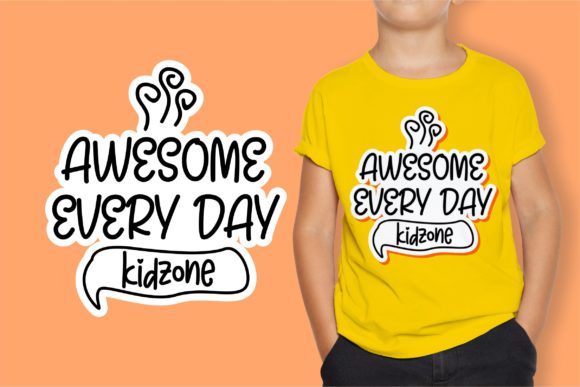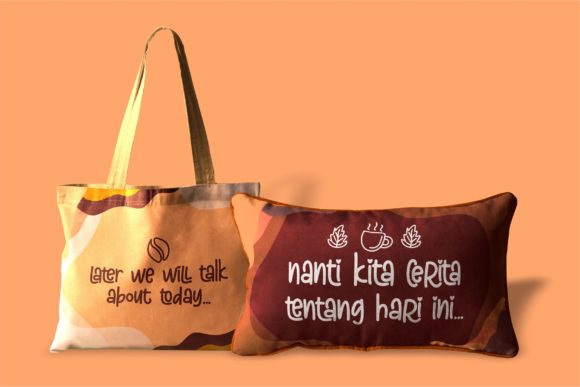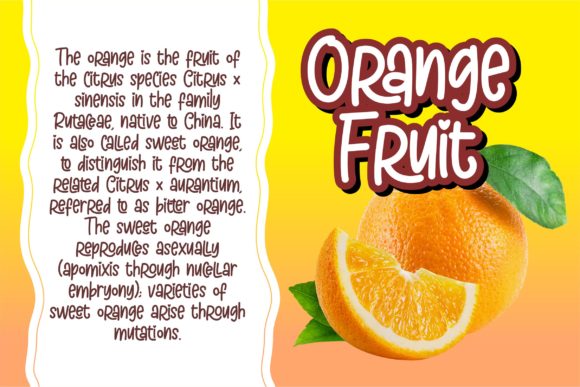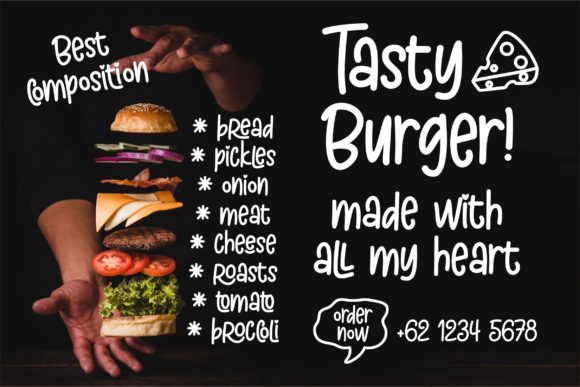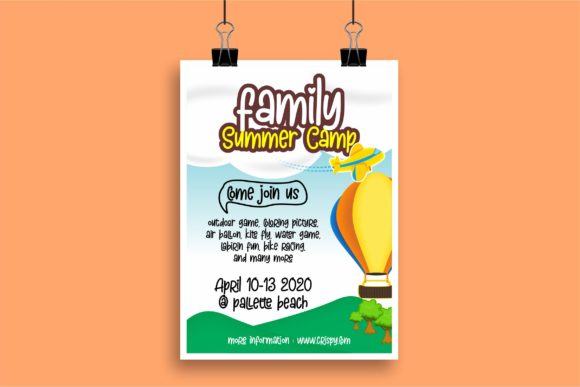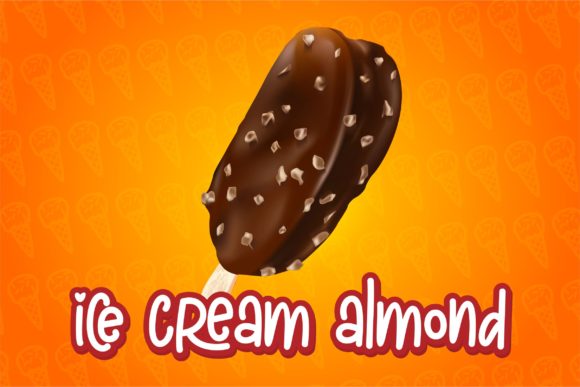
Introducing Chöcolate Crispy Font: Add a Touch of Joy to Your Designs
Are you tired of using the same old fonts in your designs? Look no further! Chöcolate Crispy Font is here to bring a fun and joyful vibe to your projects. This display font is specially crafted to give your designs a stylish and joyous look that’s sure to capture the attention of your audience.
What is Chöcolate Crispy Font?
Chöcolate Crispy Font is a unique and playful font that’s perfect for designers and crafters looking to add a touch of whimsy to their work. With its fun and curly design, this font is sure to bring a smile to anyone’s face. Whether you’re working on a logo, poster, or social media graphic, Chöcolate Crispy Font is the perfect choice.
Features of Chöcolate Crispy Font
- Fun and Joyful Design: Chöcolate Crispy Font is designed to bring a sense of joy and playfulness to your designs. Its curly and whimsical design makes it perfect for projects that require a lighthearted touch.
- Display Font: This font is specifically designed as a display font, making it perfect for headlines, titles, and other attention-grabbing elements in your designs.
- Stylish and Modern Look: Despite its playful design, Chöcolate Crispy Font has a stylish and modern look that’s sure to elevate your designs.
- Easy to Read: Despite its curly design, Chöcolate Crispy Font is easy to read, making it perfect for use in a variety of design projects.
Uses of Chöcolate Crispy Font
Chöcolate Crispy Font is a versatile font that can be used in a variety of design projects, including:
- Logos and Branding: Add a touch of whimsy to your logo and branding with Chöcolate Crispy Font.
- Posters and Flyers: Use Chöcolate Crispy Font to create eye-catching posters and flyers that are sure to grab attention.
- Social Media Graphics: Add a playful touch to your social media graphics with Chöcolate Crispy Font.
- Packaging Design: Use Chöcolate Crispy Font to add a touch of fun and personality to your packaging design.
Why Choose Chöcolate Crispy Font?
- Unique Design: Chöcolate Crispy Font has a unique and playful design that’s sure to set your designs apart.